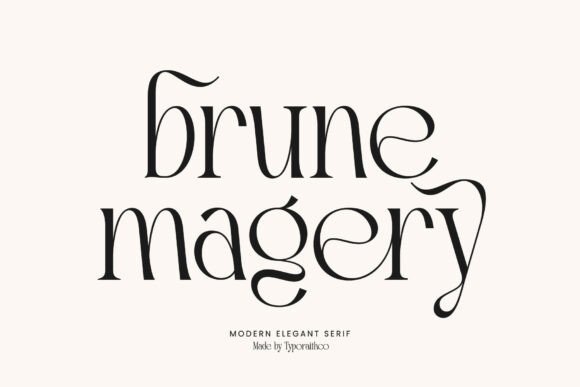
The Elegance of Brune Magery Font: A Designer’s Delight
I still remember the design project that led me to discover Brune Magery Font. I was working on a luxury branding campaign for a high-end fashion client, and I was struggling to find the perfect font that exuded elegance and sophistication. The client wanted a font that would convey a sense of refinement and luxury, but still be modern and fresh. After hours of searching, I stumbled upon Brune Magery, and it was love at first sight! ✨
A Personal Review of Brune Magery Font
- ✨ Refined, high-contrast strokes that give it a luxurious feel
- ✅ Elegant serifs that add a touch of sophistication
- 💫 Gentle curves that make it easy to read and visually appealing
- 🎨 Stylish alternates that allow for creative experimentation
While Brune Magery is an exceptional font, there are a few quirks to be aware of: ⚠️
- It may not be the best choice for body text due to its elegant, yet refined nature
- Some characters may require manual kerning for optimal spacing
The Story Behind Brune Magery Font
Brune Magery was designed by a team of typographers who aimed to create a modern, elegant serif font that combines classic sophistication with contemporary style. Inspired by traditional luxury brands and high-end fashion, they crafted a font that exudes refinement and luxury. The design process involved extensive research, sketching, and refinement to ensure that Brune Magery meets the highest standards of typographic excellence.
| Font Name | Brune Magery Font |
| Author | Typoraith Co |
Q: What is Brune Magery font best suited for?
A: Brune Magery is ideal for luxury branding, editorial design, high-end packaging, and fashion-related projects.
Q: Can I use Brune Magery for body text?
A: While Brune Magery is an elegant font, it may not be the best choice for body text due to its refined, high-contrast strokes. It’s better suited for headlines, titles, and short paragraphs.
Q: Is Brune Magery a versatile font?
A: Yes, Brune Magery is a versatile font that can be used in a variety of contexts, from luxury branding to editorial design.
Q: Does Brune Magery support OpenType features?
A: Yes, Brune Magery supports OpenType features, including ligatures, stylistic alternates, and glyphs.